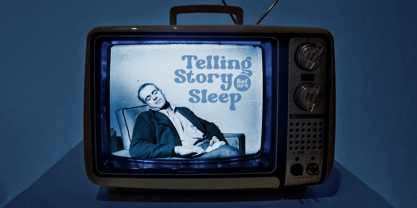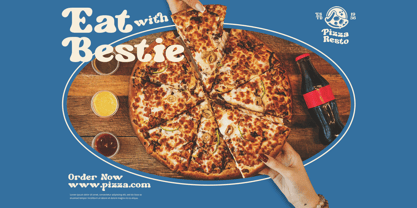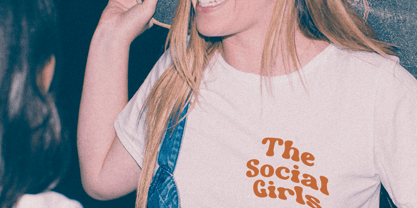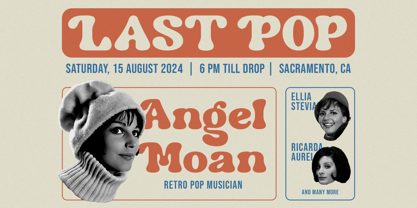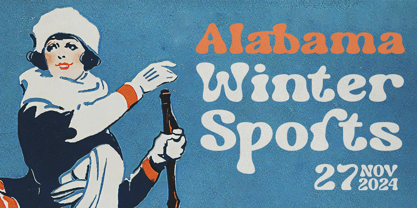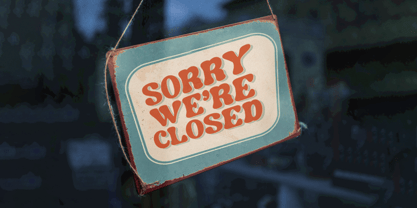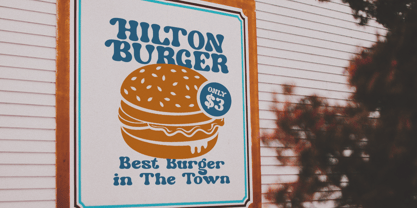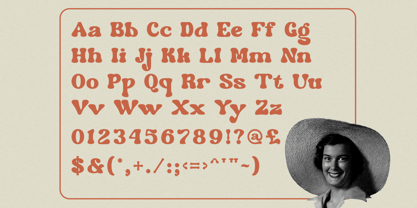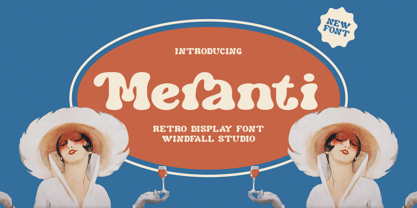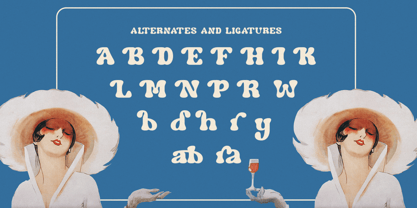
Meranti
by Windfall Studio
The Meranti Font Family was designed by Anggia Putri Premitasari and published by Windfall Studio. Meranti contains 1 styles.
Meranti - Modern Bold Retro Typeface
Meranti is a contemporary yet bold retro typeface that seamlessly blends modern boldness with nostalgic retro vibes. With its strong lines and retro-inspired details, this font exudes a powerful and charismatic presence in any design. Perfect for branding, logos, posters, headlines, and more, Meranti injects a bold retro flair into your projects.
Embrace its dynamic energy and elevate your designs with Meranti.